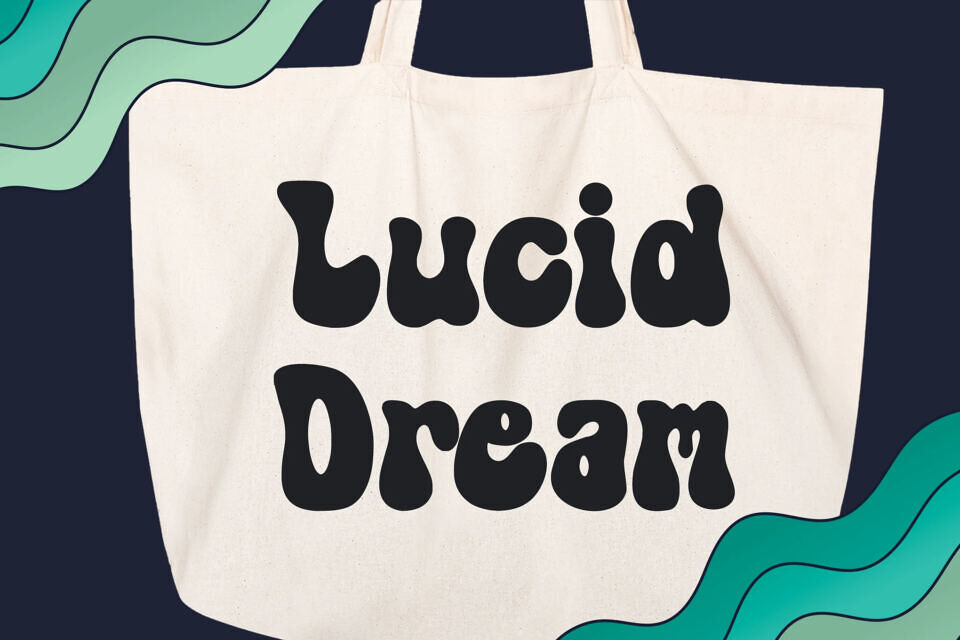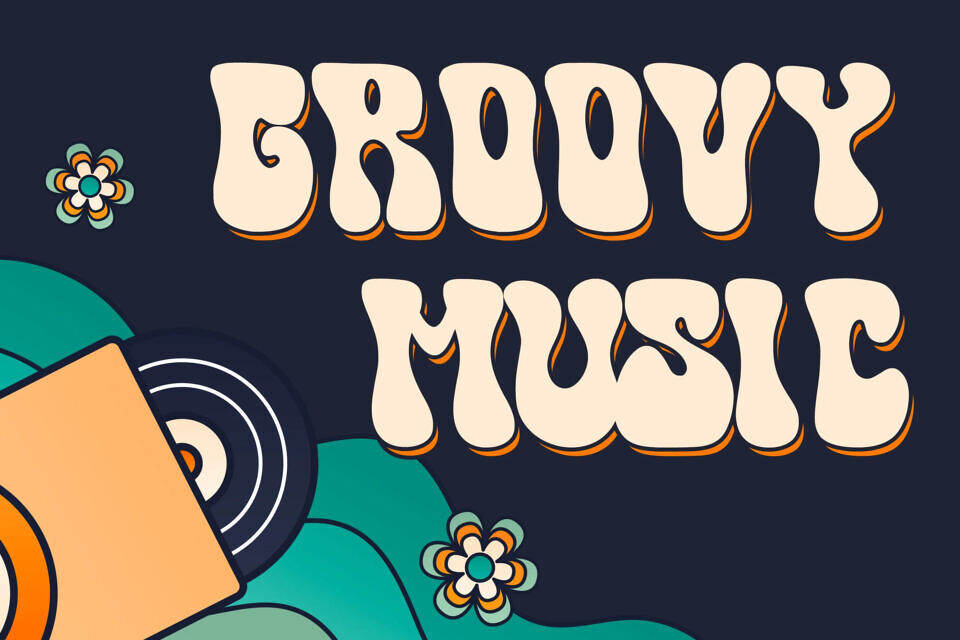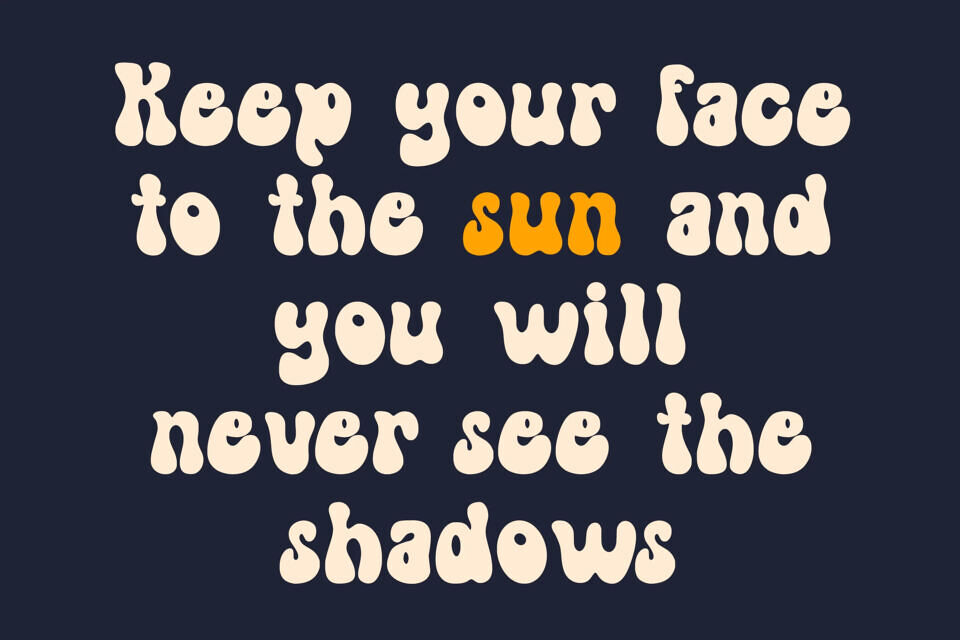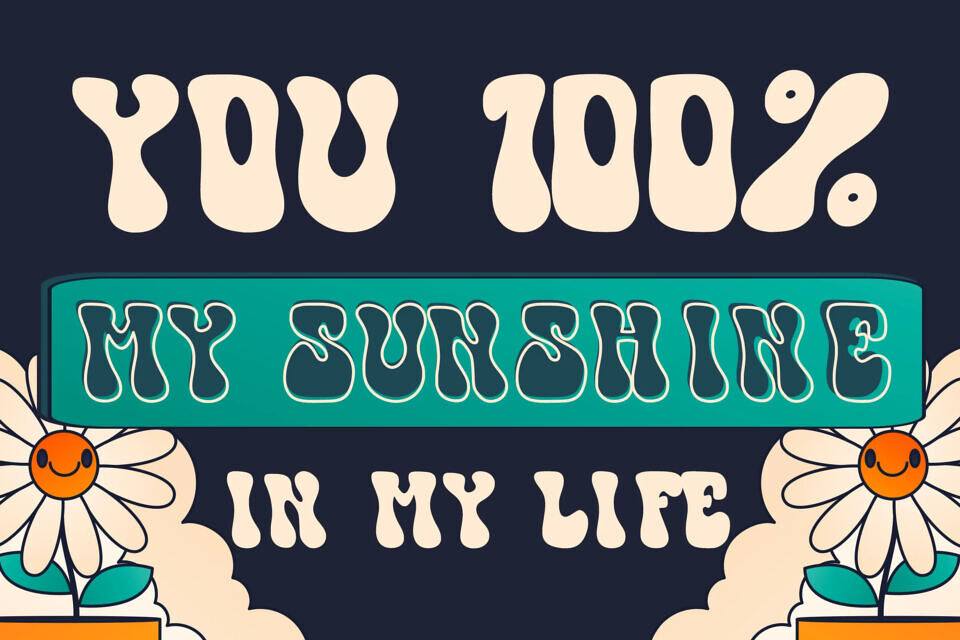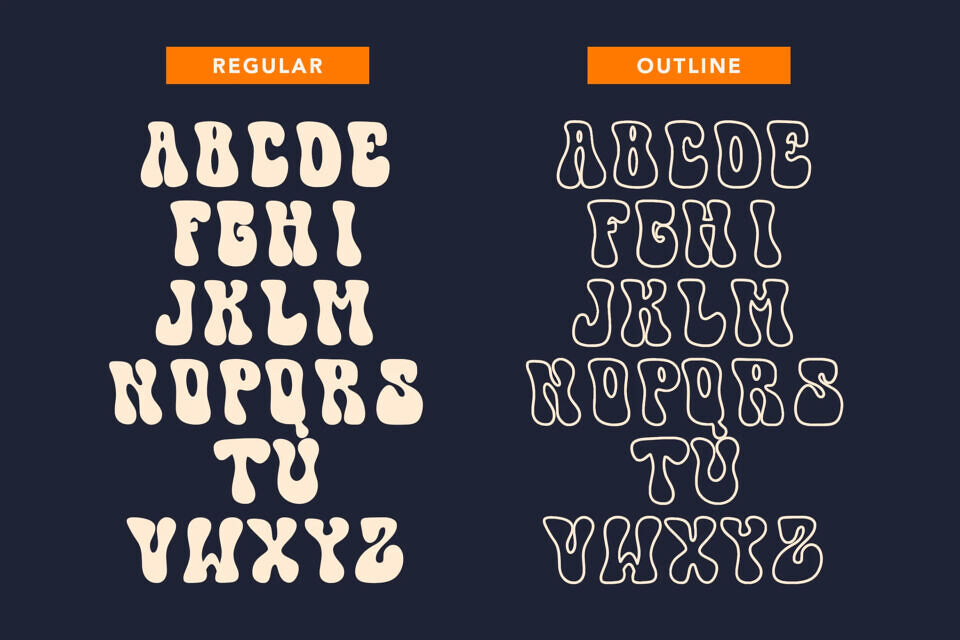
Lucidity Groovy font refers to a unique and distinctive typeface that originated in the 1960s and became popular during the hippie counterculture movement. It is characterized by its bold, curvy, and psychedelic appearance, which embodies the expressive and free-spirited ethos of the era.
The groovy font features exaggerated and exaggeratedly curvilinear letterforms, often with elongated and intertwining ascenders and descenders. The letters have a flowing quality with intricate loops and loops that give them a sense of movement and energy. The strokes of the letters can be thick or thin, adding contrast and enhancing the visual impact.